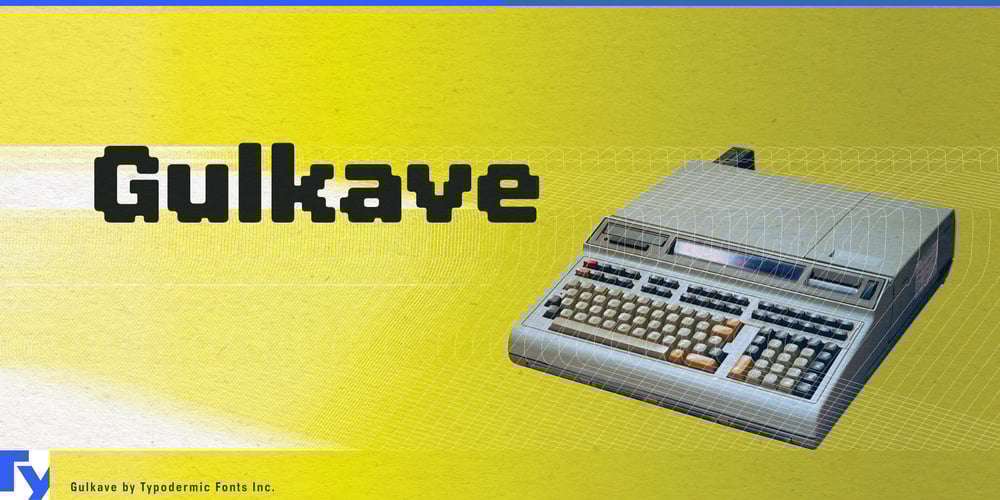
Gulkave
Gulkave font
Gulkave Font Family was designed by Ray Larabie and published by Typodermic. Gulkave contains 1 styles and family package options. Power up your designs with Gulkave, a typeface that doesn’t just nod to the past—it hacks it, remixes it, and propels it into the future. This isn’t just another pixel font; it’s a digital time machine, ready to transport your projects into a realm where retro cool meets cutting-edge design.Imagine each character as a tiny rebellion against the tyranny of high-resolution blandness. Gulkave’s low-res aesthetic isn’t just a throwback—it’s a statement, a pixelated punch that cuts through the noise of overdesigned typography. It’s the typeface equivalent of finding a mint condition Commodore 64 in a world of sleek smartphones. But don’t be fooled by its old-school vibe. Gulkave isn’t content to simply mimic the past. This is bitmap elevated to an art form, each letterform meticulously crafted to balance nostalgia with modern legibility. It’s like someone took the essence of classic 8-bit graphics and ran it through a typographic particle accelerator.Gulkave doesn’t just sit on the page—it colonizes it. Use it for headlines, and watch as your words transform into declarations of digital independence. Deploy it in logos, and see how it infuses your brand with the kind of techno-cool that money can’t buy. From retro-inspired game designs to cutting-edge tech startups, Gulkave is the secret weapon in your typographic arsenal. This font isn’t just about looking good—it’s about communicating across borders and cultures. Supporting a vast array of Latin-based European languages, Gulkave is ready to spread its pixelated gospel from the fjords of Norway to the beaches of Brazil. It’s the Esperanto of retro-futurism, speaking a visual language that transcends linguistic boundaries.In a world drowning in smooth, sanitized sans-serifs, Gulkave stands as a jagged, jubilant celebration of digital imperfection. It’s for designers who understand that sometimes, to move forward, you need to take a bold step back. It’s for brands that aren’t afraid to show their edges, to revel in the beautiful blockiness of a bygone digital era. So, are you ready to inject your designs with a dose of pixelated panache? To give your typography a jolt of retro electricity?It’s time to break free from the high-res prison and embrace the beautiful blockiness of a new typographic frontier. The future of retro is here, and it speaks in the bold, blocky voice of Gulkave. Are you game?